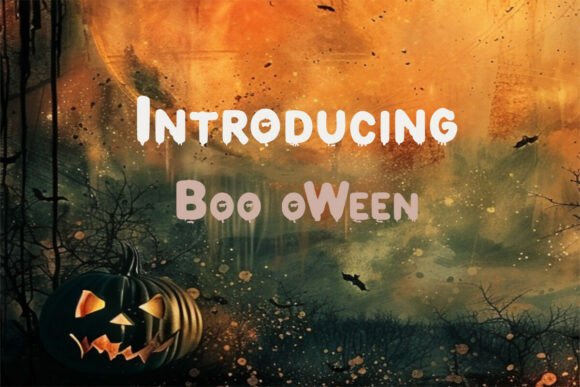
Unleash Your Creativity with the Boo Oween Font
A Personal Review of Boo Oween
What I Love About Boo Oween
- ✨ Unique and quirky design that adds a touch of personality to any project
While Boo Oween is an exceptional font, there are a few minor quirks to consider:
The Backstory of Boo Oween
Boo Oween was designed by a team of creatives who aimed to create a font that would add a touch of personality to any design project. Inspired by vintage typography and modern design trends, Boo Oween is the result of a meticulous design process that aimed to craft a unique and versatile font.
In conclusion, Boo Oween is a versatile and unique font that can elevate your design projects and add a touch of personality to your creations. With its quirky design, adaptability, and OpenType features, Boo Oween is perfect for designers, crafters, and creative hobbyists looking to make a statement.